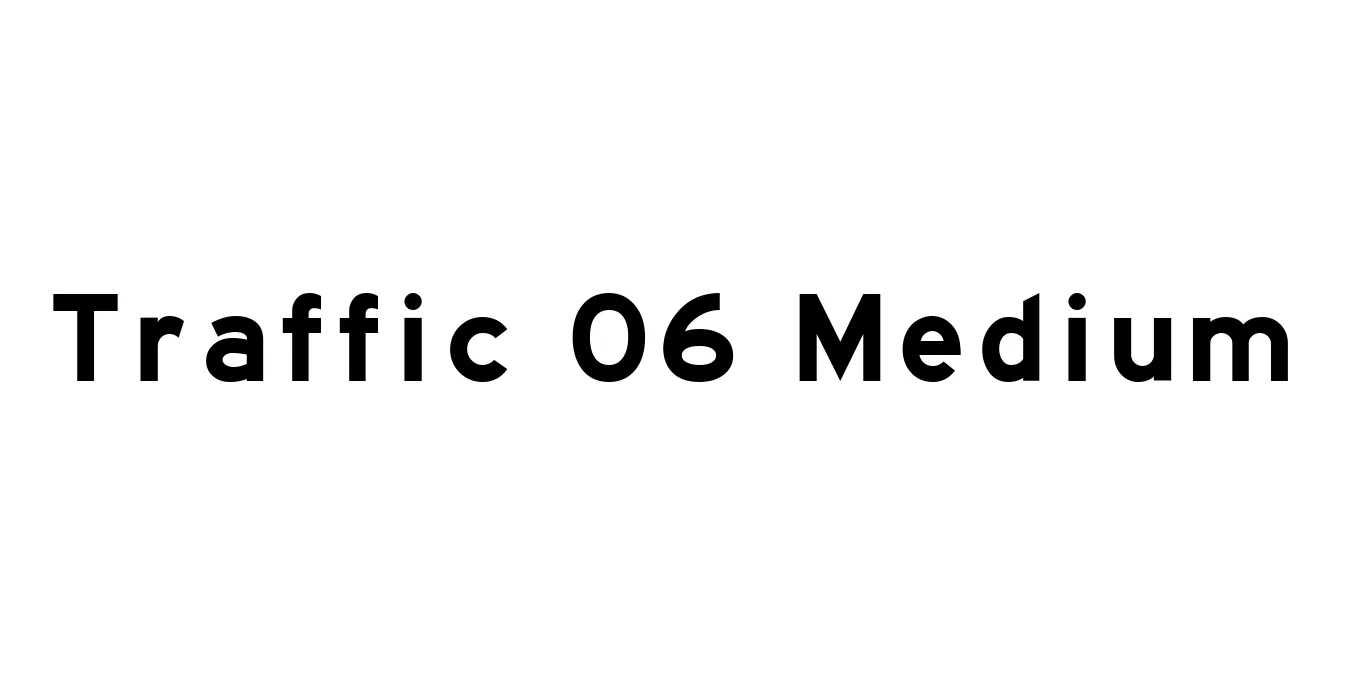
Traffic 06 Medium
Traffic 06 Medium is a robust and functional sans-serif typeface specifically engineered for high visibility and instant recognition in urban environments. Its design origins are deeply rooted in the necessity for clear communication, mirroring the functional aesthetic found in European roadway systems and public transportation signage. The medium weight offers a perfect balance between stroke thickness and negative space, ensuring that characters remain distinct even from a distance or under poor lighting conditions.
As part of the broader Traffic type family, this iteration focuses on a modernist approach to typography, stripping away unnecessary ornamentation in favor of geometric precision. Over the years, it has transitioned from physical metal signs to the digital realm, becoming a favorite among graphic designers who seek an industrial, authoritative, yet approachable look for corporate branding, information design, and modern web interfaces.
Traffic 06 Medium Best Uses
Ideal for road signs, public transport maps, and environmental wayfinding.
Perfect for grabbing attention in bold editorial layouts and posters.
Suitable for technology, manufacturing, and logistics brands seeking an authoritative look.
Great for clear navigation menus, buttons, and user interface elements.